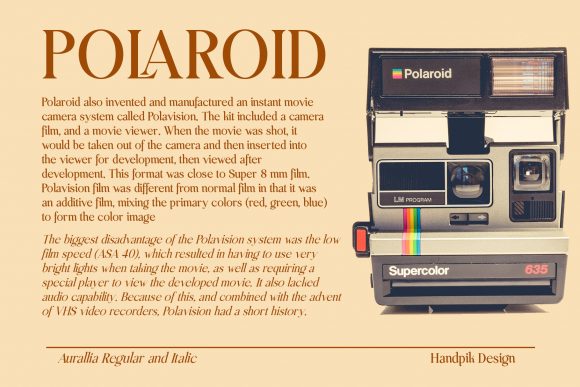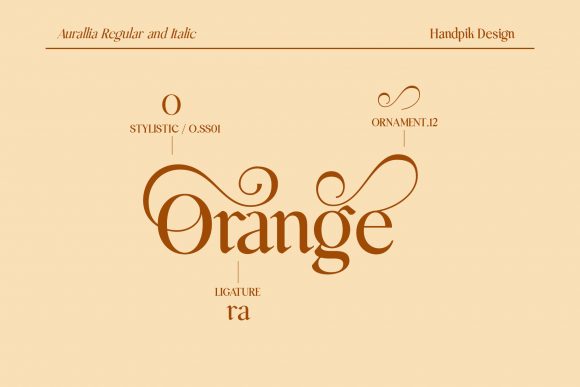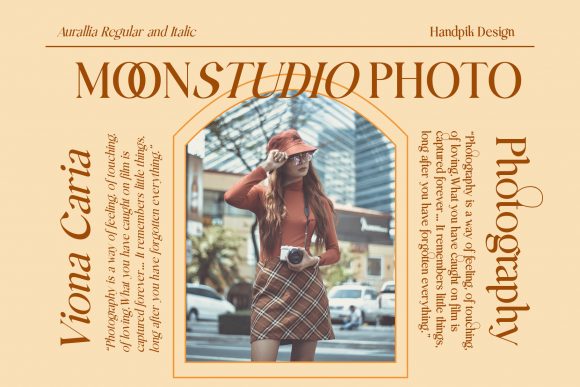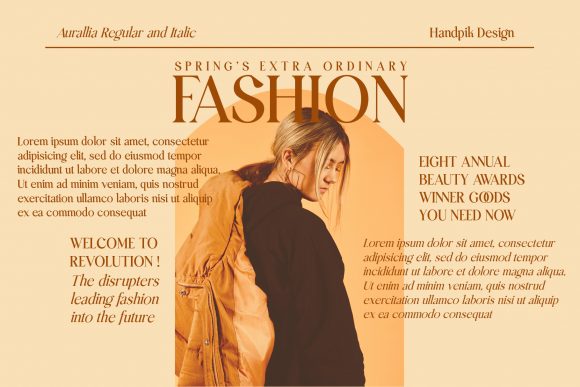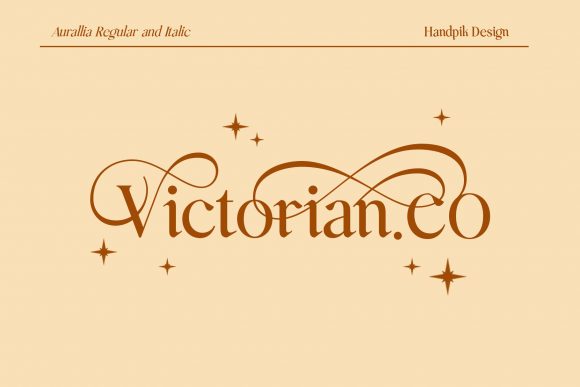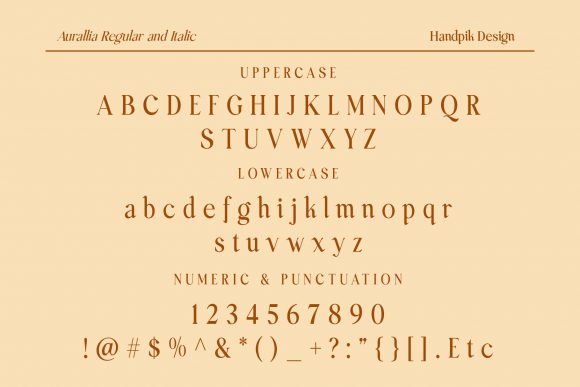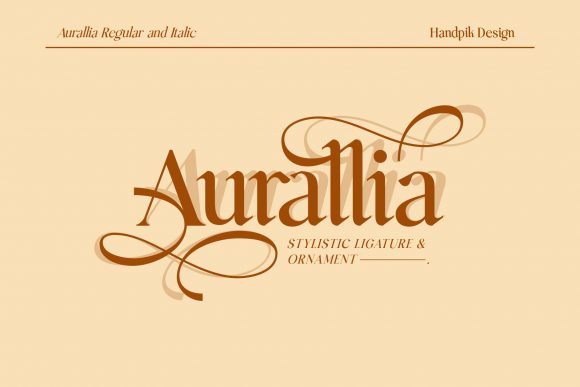
Aurallia Font: Elevate Your Designs with Refined Elegance
In the world of typography, a well-crafted font can make all the difference in elevating your designs to new heights. Introducing Aurallia, a refined and fashionable serif font that is sure to become a valuable addition to your font library. With its neat and highly detailed design, Aurallia is the perfect choice for designers and crafters looking to add a touch of sophistication to their creations.
The Art of Aurallia
Aurallia is a masterpiece of font design, boasting a level of refinement and elegance that is hard to find in modern typography. Each letterform is carefully crafted to perfection, with intricate details and subtle nuances that give the font a sense of luxury and refinement. Whether you’re working on a branding project, a website design, or a print publication, Aurallia is the perfect choice for adding a touch of class and sophistication.
One of the standout features of Aurallia is its versatility. This font is designed to work beautifully across a wide range of topics and applications, from fashion and beauty to lifestyle and technology. Whether you’re creating a logo, a brochure, or a social media graphic, Aurallia has the potential to enhance any creation and take it to the next level.
PUA Encoding: Unlocking Creative Freedom
Aurallia is PUA (Private Use Area) encoded, which means that you can access a wide range of glyphs and swashes with ease. This gives you the creative freedom to experiment with different typographic combinations and arrangements, allowing you to push the boundaries of what’s possible with your designs. With Aurallia, you can add an extra layer of depth and visual interest to your work, setting it apart from the competition.
What Makes Aurallia Special?
- Refined and fashionable design: Aurallia boasts a sleek and sophisticated design that’s perfect for high-end branding and design projects.
- Highly detailed letterforms: Each letterform is carefully crafted to perfection, with intricate details and subtle nuances that give the font a sense of luxury and refinement.
- PUA encoded: With PUA encoding, you can access a wide range of glyphs and swashes, giving you the creative freedom to experiment with different typographic combinations and arrangements.
- Versatile and adaptable: Aurallia is designed to work beautifully across a wide range of topics and applications, making it the perfect choice for designers and crafters who need a reliable and versatile font.
In conclusion, Aurallia is a refined and fashionable serif font that is sure to become a valuable addition to your font library. With its neat and highly detailed design, PUA encoding, and versatility, Aurallia has the potential to enhance any creation and take it to the next level. Whether you’re a designer, crafter, or simply someone who appreciates beautiful typography, Aurallia is a must-have font that’s sure to impress.